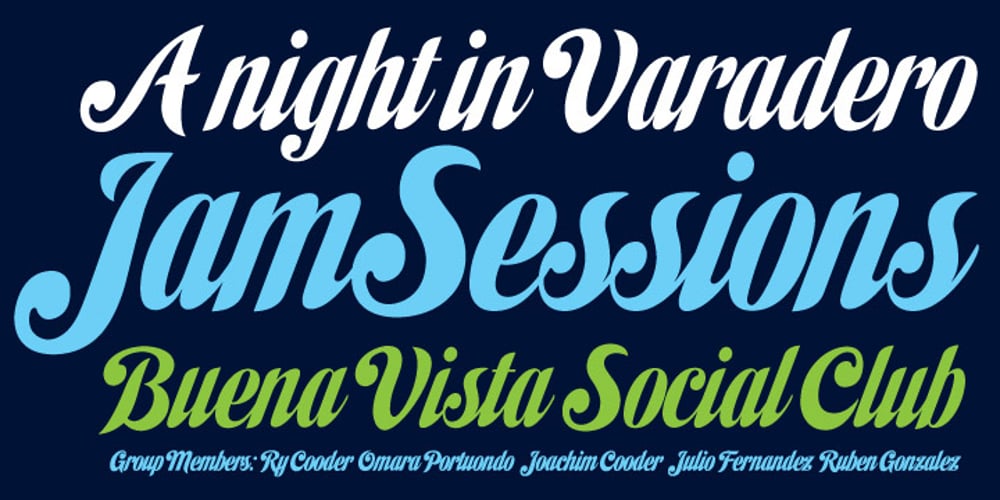
Habano ST Font Family was designed by Alejandro Paul, Angel Koziupa and published by Sudtipos. Habano ST contains 1 styles and family package options. Habano is an eleganty flowing bold script with some very surprising traits. Taking its roots in both the art deco style and the kind of lettering used for pop culture, its minuscules are classy yet obedient, and its majuscules and figures are playfully round and memorable. This contrast in character between cases makes for an appealing display face that can turn simple words into images that are hard to forget. Once again, the unique lettering talent of Angel Koziupa makes itself evident through an alphabet that leaves the memory of its soft touch for long after it is initially perceived.